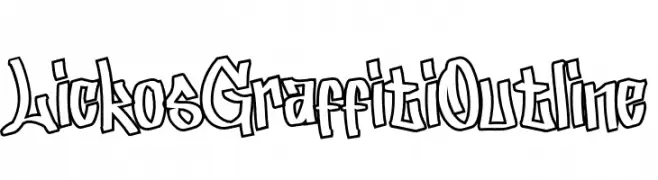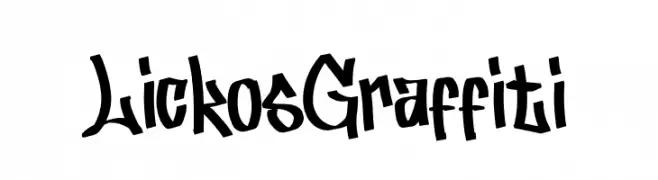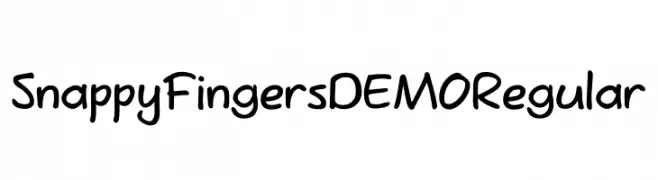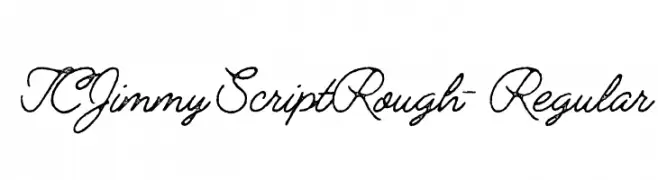
( Fonts by Yoga Letter )
A whimsical and elegant script font with flowing, interconnected letters and decorative swirls.
( Fonts by Fitrah Type )
A bold, graffiti-style font with dynamic, angular shapes and a hand-drawn feel.
( Fonts by Fitrah Type )
A bold, graffiti-inspired outline font with dynamic curves and sharp angles.
( Fonts by Fitrah Type )
A bold, bubble graffiti font with a 3D extruded effect.
( Fonts by Fitrah Type )
A playful, bubble-like font with a graffiti-inspired style.
( Fonts by Fitrah Type )
A bold, playful bubble graffiti-style font with rounded, tightly packed characters.
A rough, textured script font with a handwritten feel.
( Fonts by D K )
A playful, handwritten font with bold, rounded characters and dynamic embellishments.
( Fonts by Hanoded )
Hand-drawn, whimsical sans-serif with tall, narrow letters.